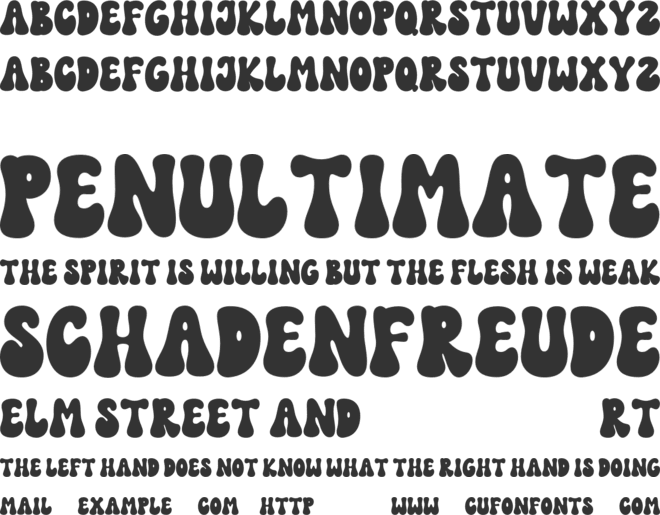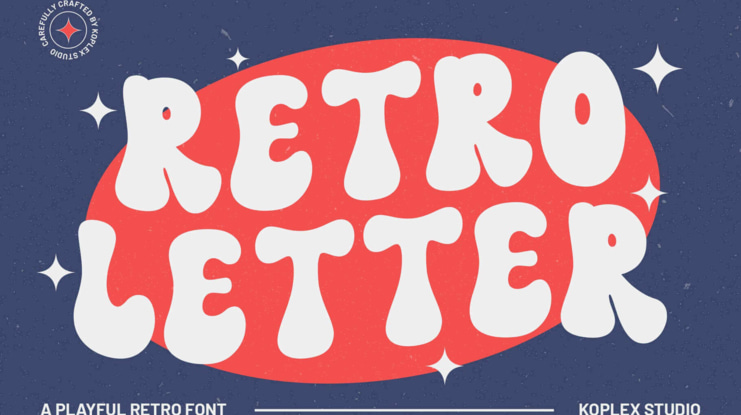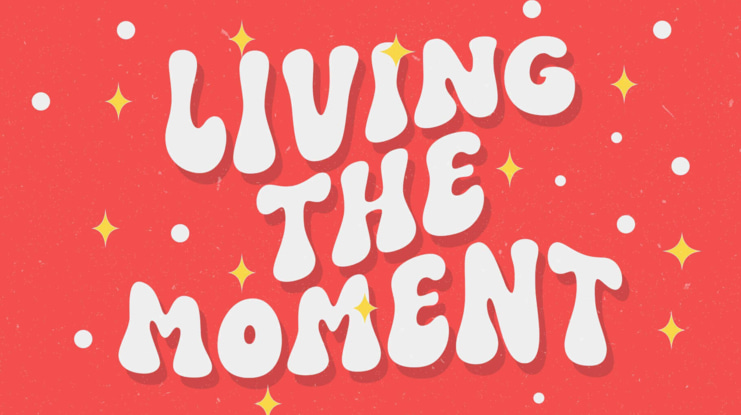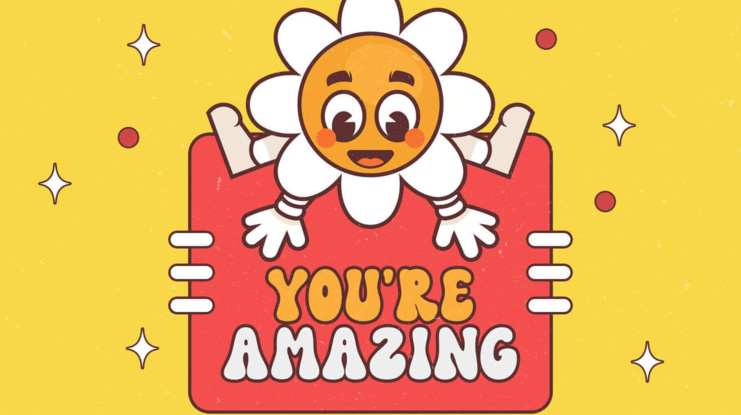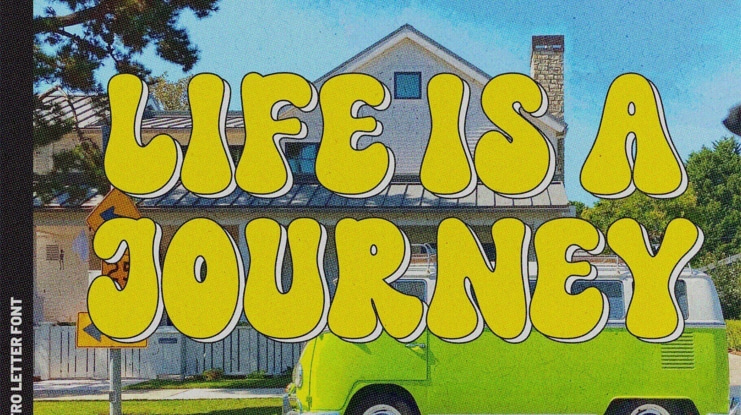
Retro Letter Font is a bold and playful retro font inspired by groovy 70s bubble letters. This bubble font combines nostalgic charm with modern design, making it perfect for creative projects like posters, packaging, logos, and apparel. With its soft curves and vintage aesthetic, it stands out as both a fancy font and a bubble letter font, ideal for designers seeking a fun and unique retro style font for eye-catching results.
Designed for versatility, Retro Letter Font works beautifully as a branding font, poster font, or logo font, giving your work a distinctive retro-meets-modern vibe. Whether you’re creating merchandise, social media graphics, or editorial designs, this groovy font adds a timeless, joyful touch. Download Retro Letter Font today and bring vintage creativity to life!